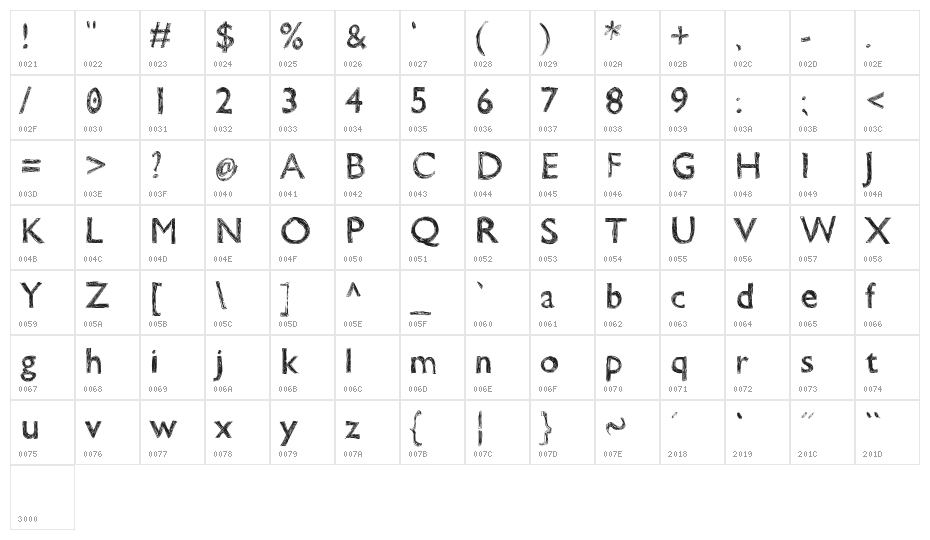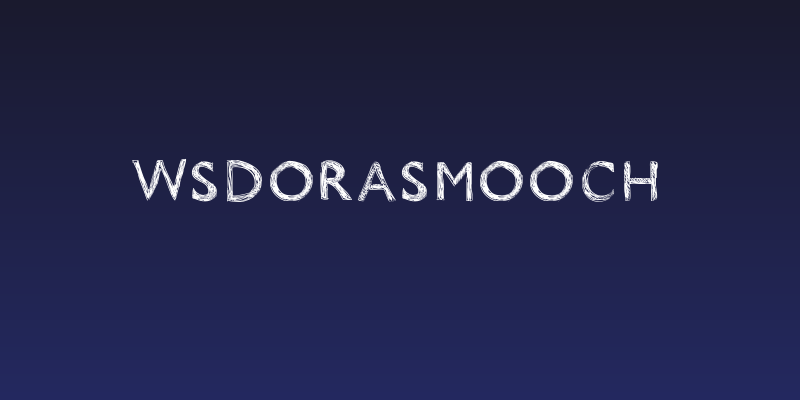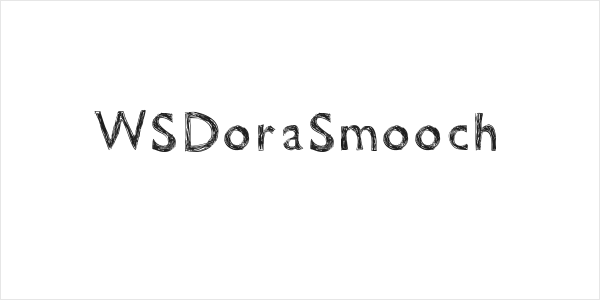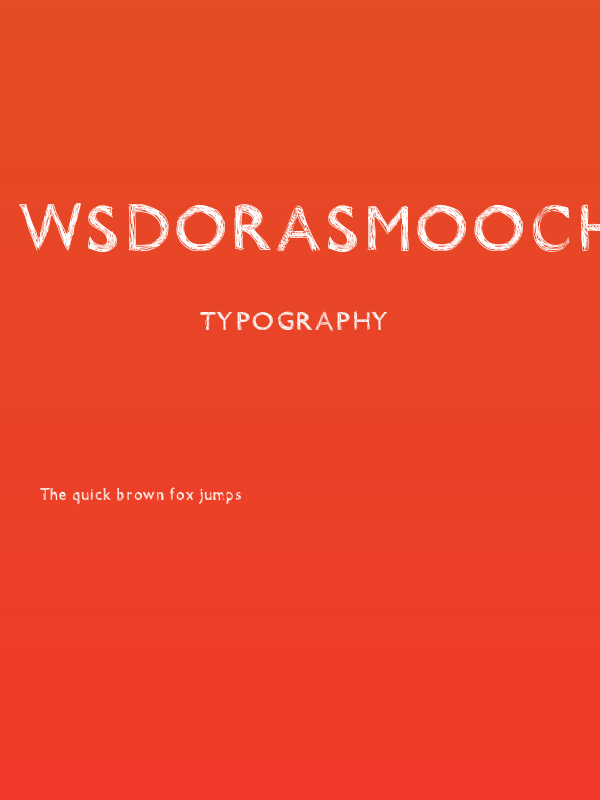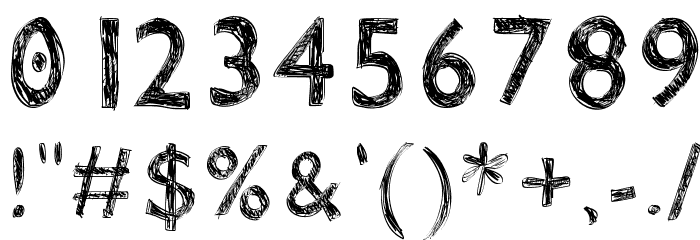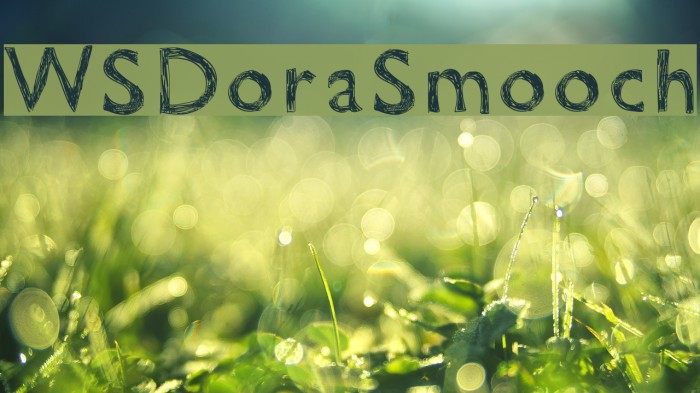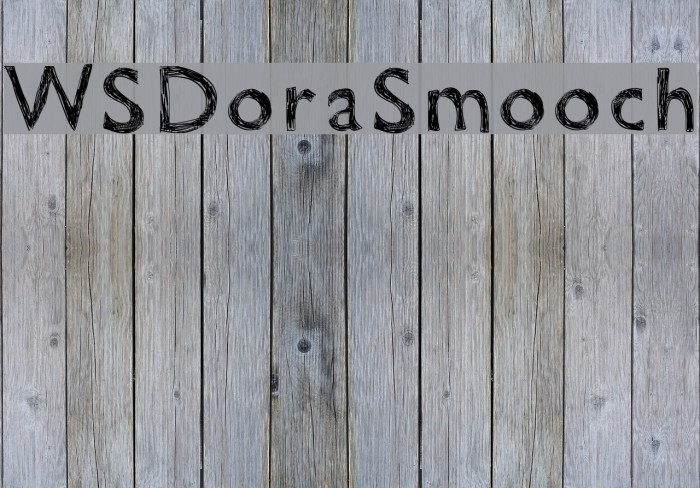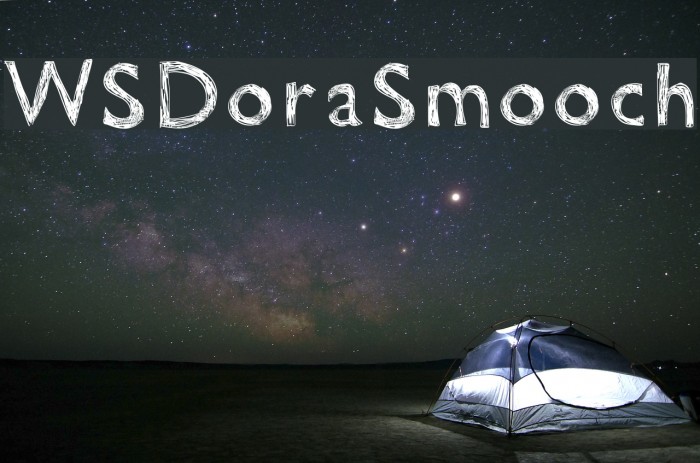
WSDoraSmooch Font
WSDoraSmooch Description
This font features a playful and hand-drawn style, characterized by its sketch-like appearance. Each character appears as if it has been drawn with a pencil, giving it a textured and artistic feel. The letters are slightly irregular, adding to the whimsical and informal nature of the font. The strokes vary in thickness, creating a dynamic and lively look. This font is perfect for projects that require a personal touch or a creative flair, such as children's books, greeting cards, or artistic posters.
| Use Case | Headlines, Artistic projects, Informal designs |
| Proposed Projects | Ideal for children's books, greeting cards, artistic posters, and creative projects. |